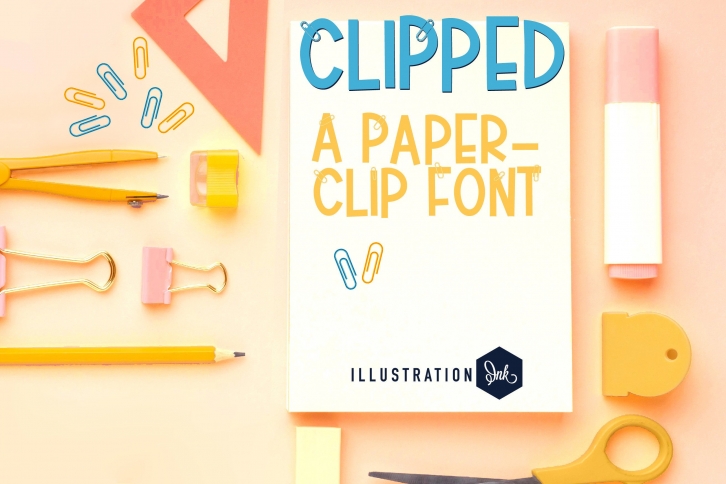
Clipped is a blocky sans serif display font that has paper clips on the uppercase letters. Perfect for planners, memos, or any back-to-school project!